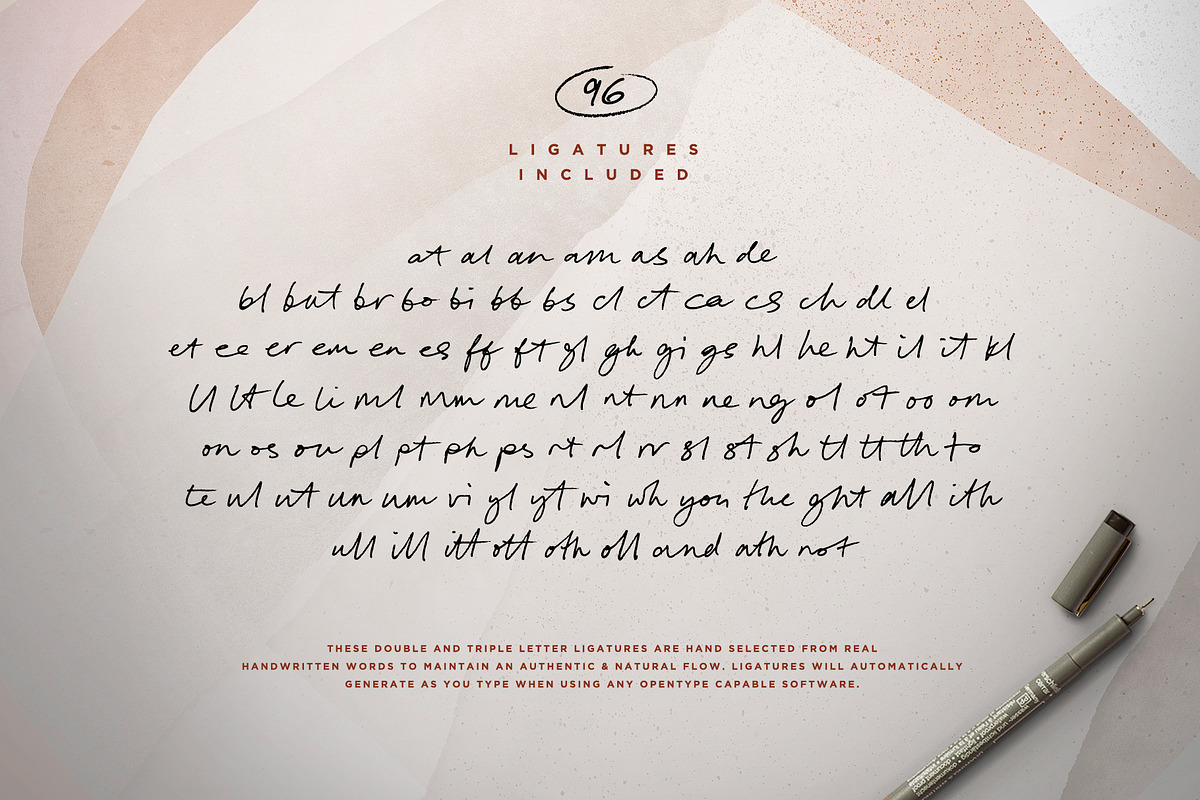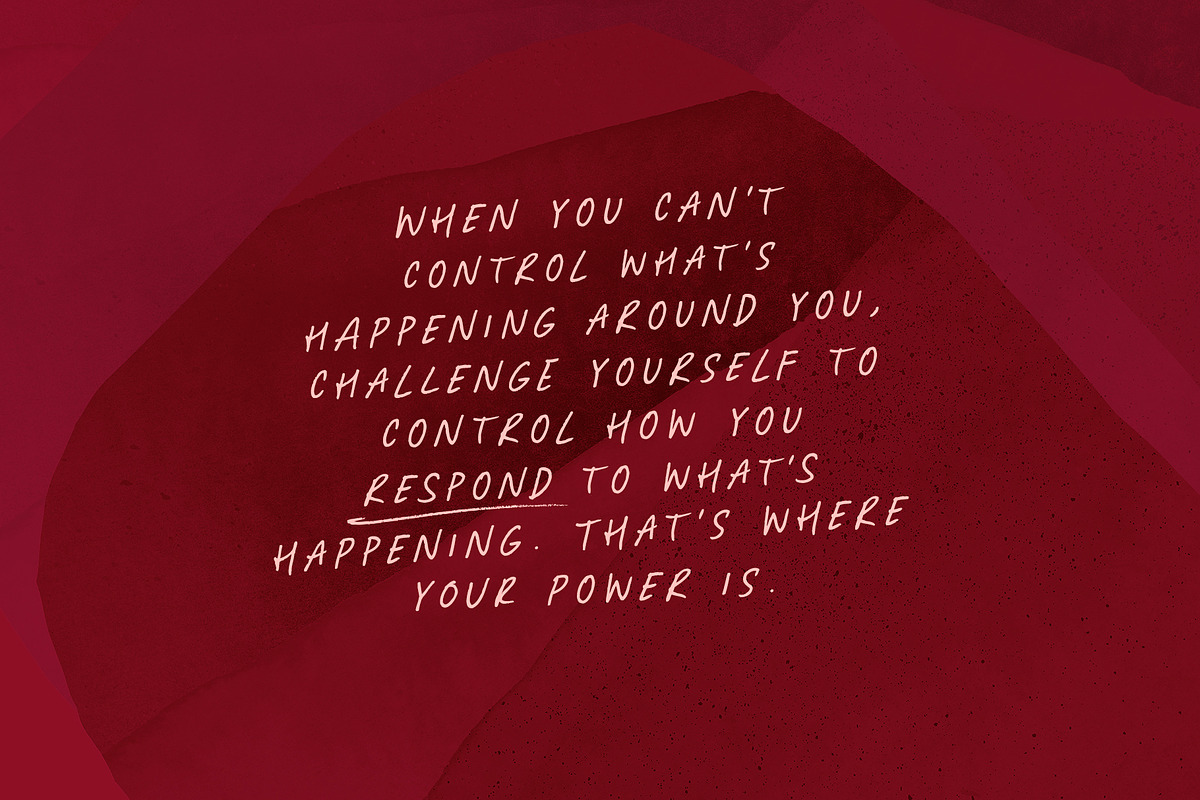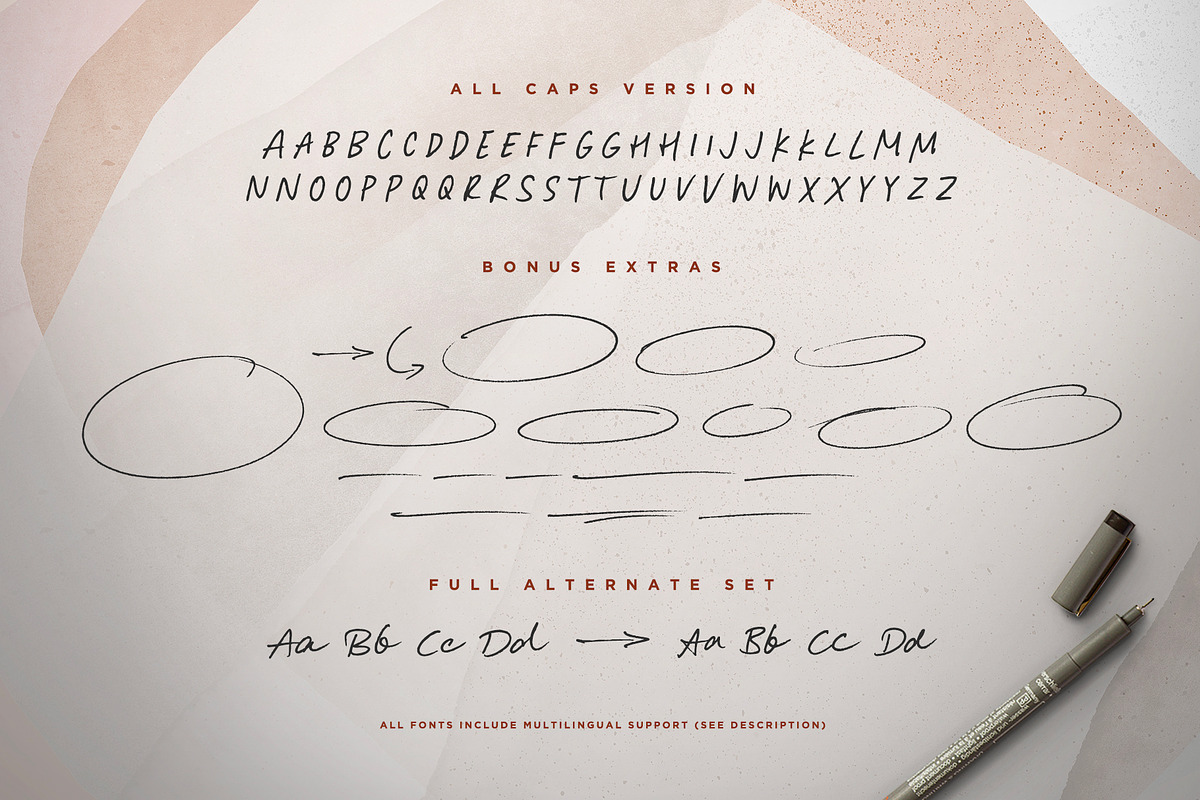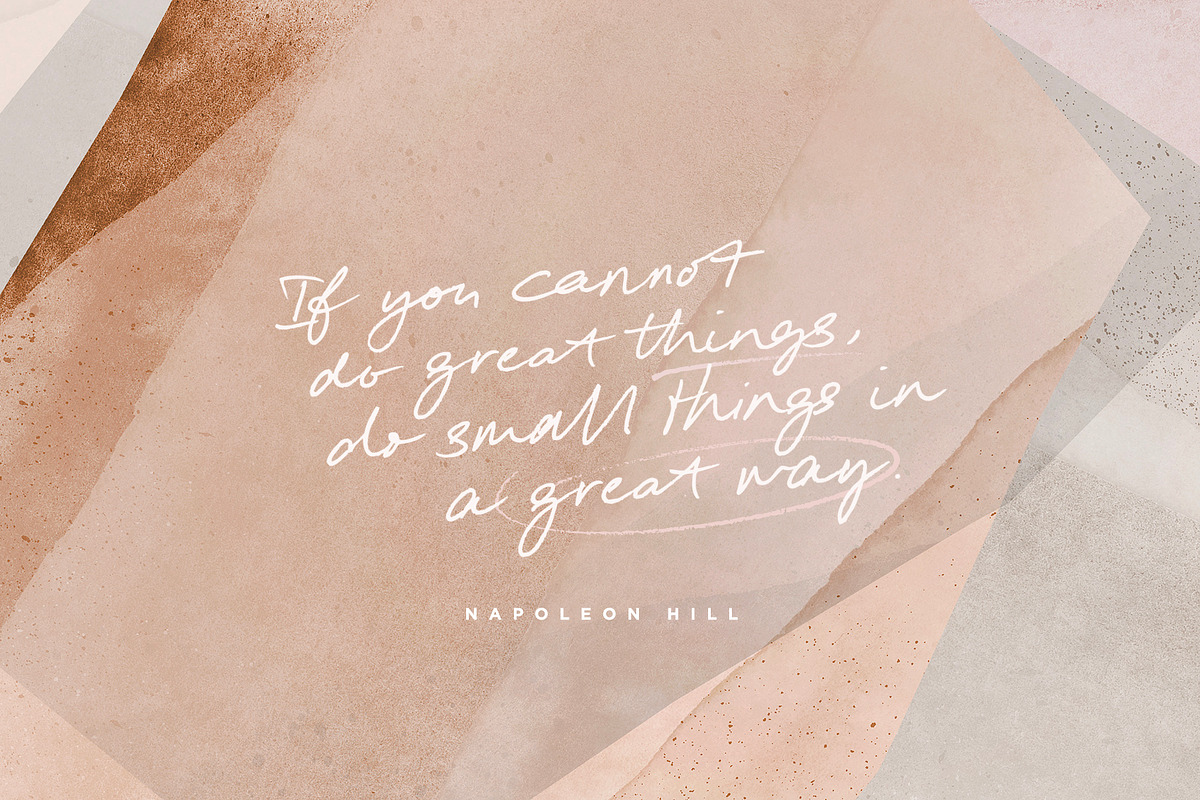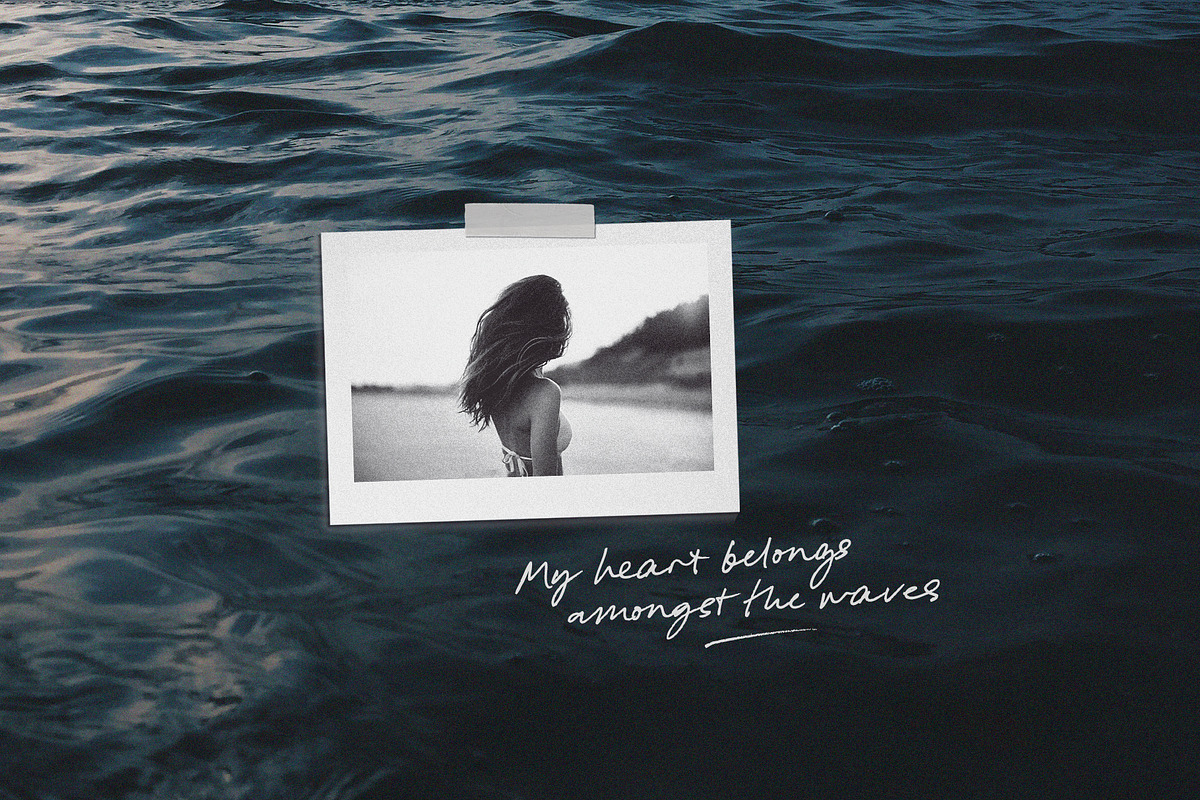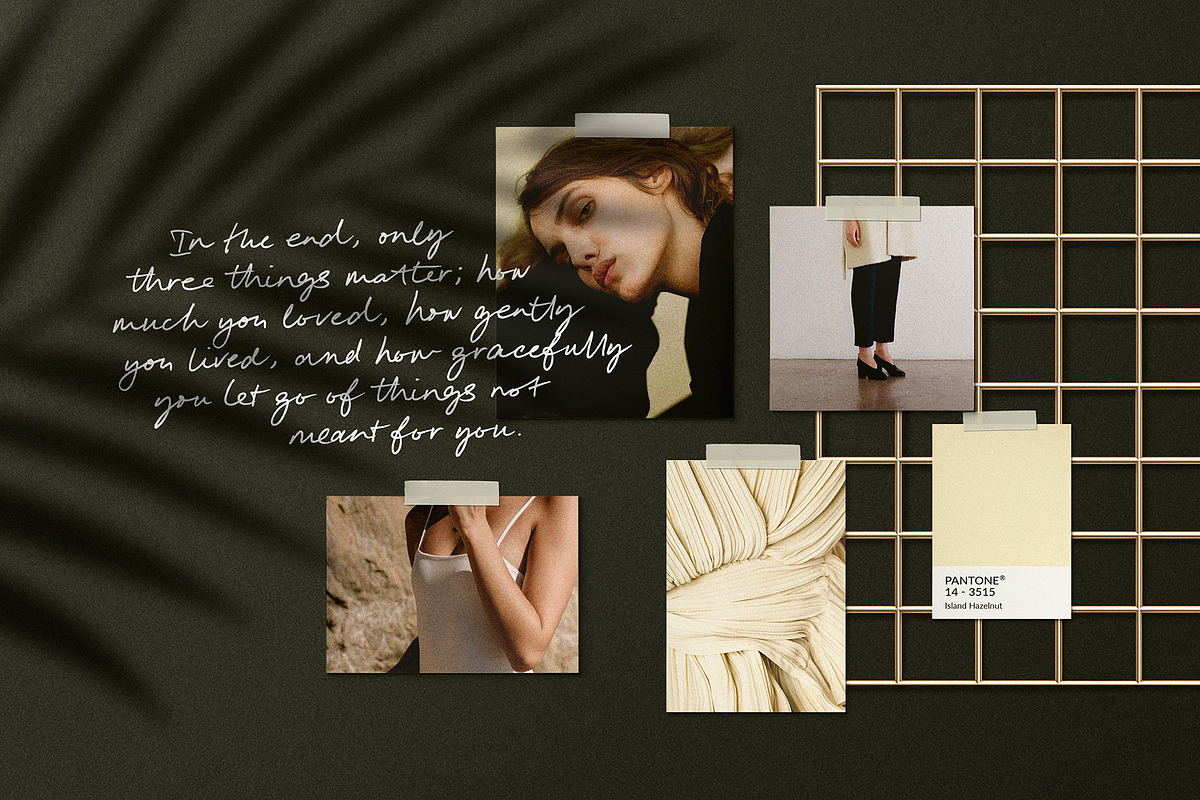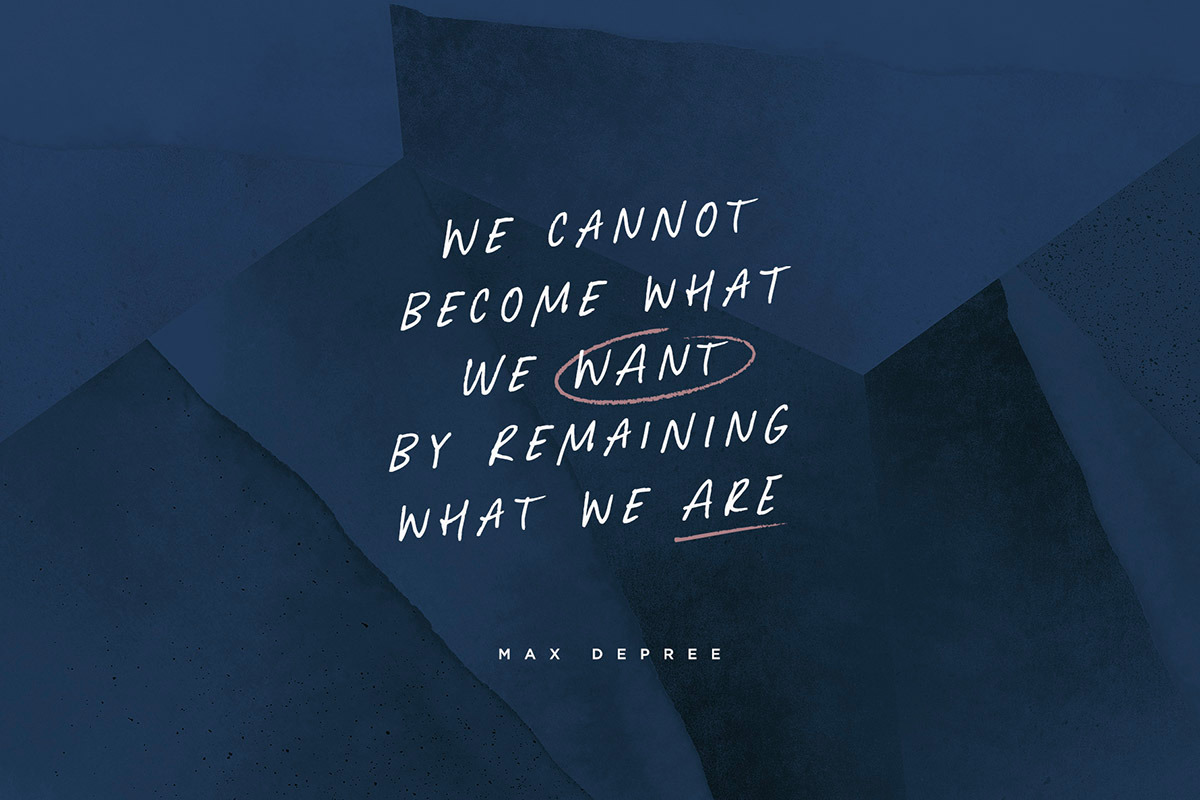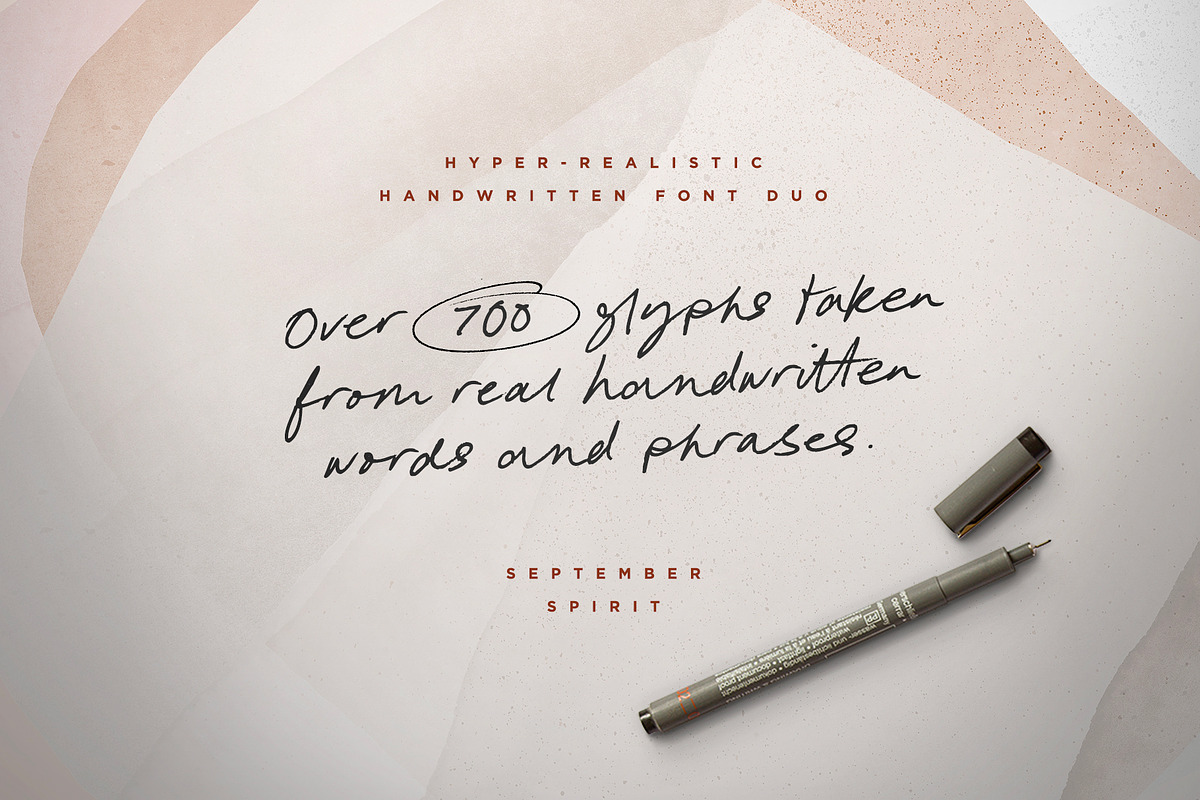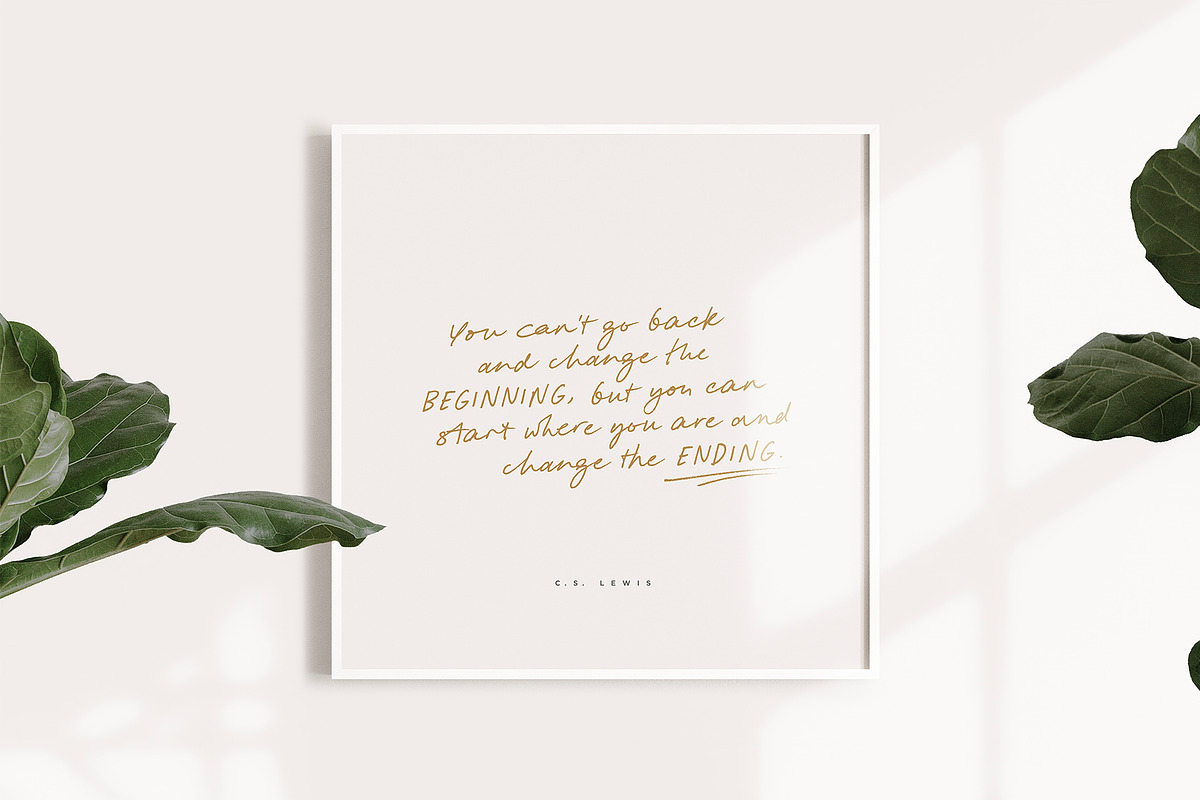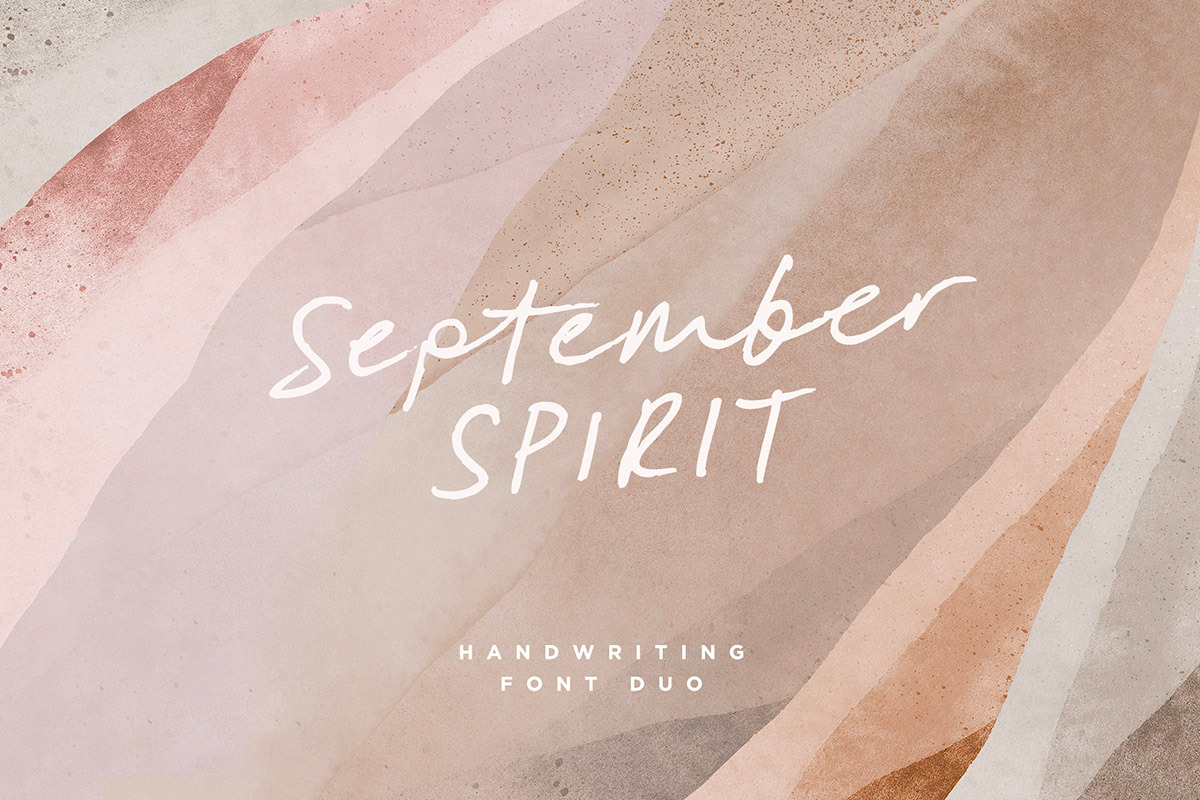
September Spirit Font Duo
Introducing the September Spirit Font Duo! A hyper-realistic handwritten font duo, which utilises a large range of ligatures (uniquely designed letter combinations), and alternate characters—all taken from real handwritten words—to achieve an incredibly natural handwritten style.
As well as the fast-flowing handwriting font, September Spirit also include an all-caps version, great for combining with the regular font for adding emphasis to words, or even as it's own standalone font. Not only that, a bonus font of extra circles, underlines & arrows is included to add even more emphasis and an additional hand-crafted aesthetic.
September Spirit • A fast-flowing handwritten font containing upper & lowercase characters, numerals, and a large range of punctuation.
September Spirit Alt • This is a second version of September Spirit, with a completely new set of both upper and lowercase characters. If you wanted to avoid letters looking the same each time to recreate a custom-made style, or try a different word shape, simply switch to this font for an additional layout option.
September Spirit All Caps • An uppercase-only font, perfect for pairing with the regular September Spirit fonts to add emphasis to words or phrases.
September Spirit Extras • A bonus font containing 19 hand-drawn arrows, cirlces and underlines. Ideal for adding to your September Spirit text for extra emphasis.
Language Support • September Spirit supports the following languages; English, French, Italian, Spanish, Portuguese, German, Swedish, Norwegian, Danish, Dutch, Finnish, Indonesian, Malay, Hungarian, Polish, Croatian, Turkish, Romanian, Czech, Latvian, Lithuanian, Slovak, Slovenian